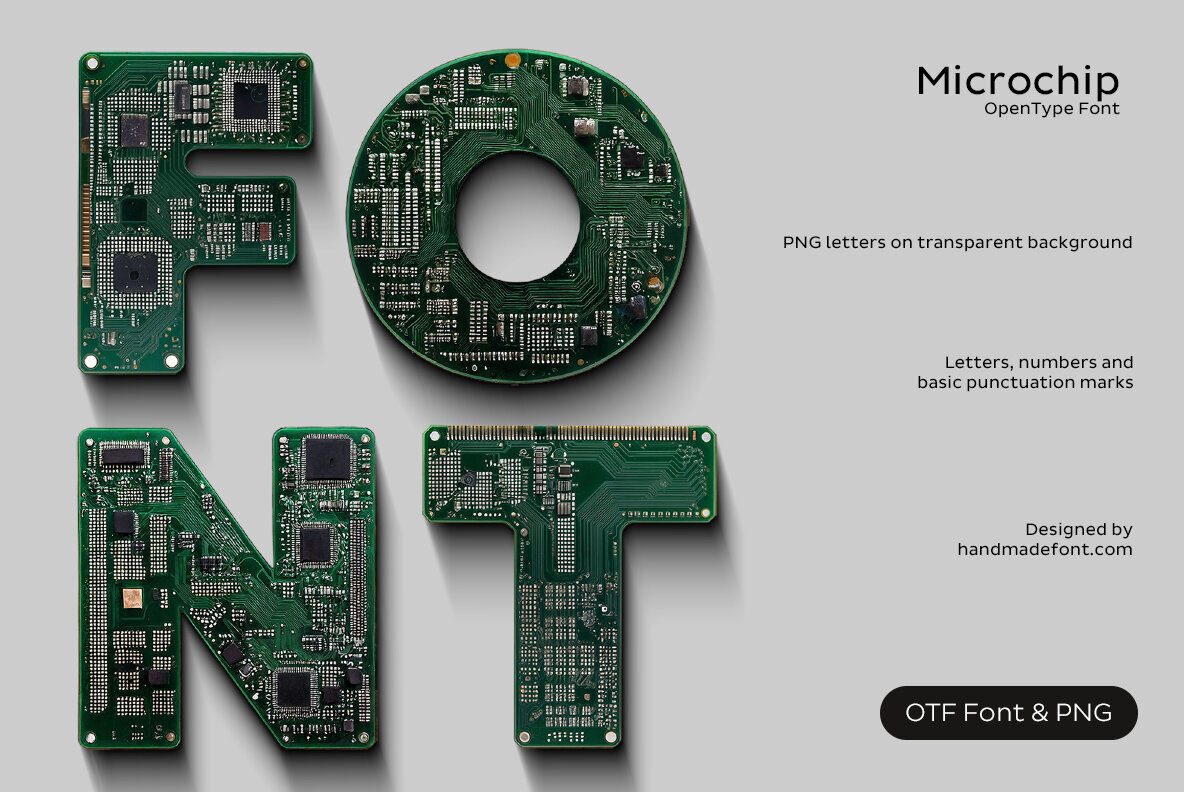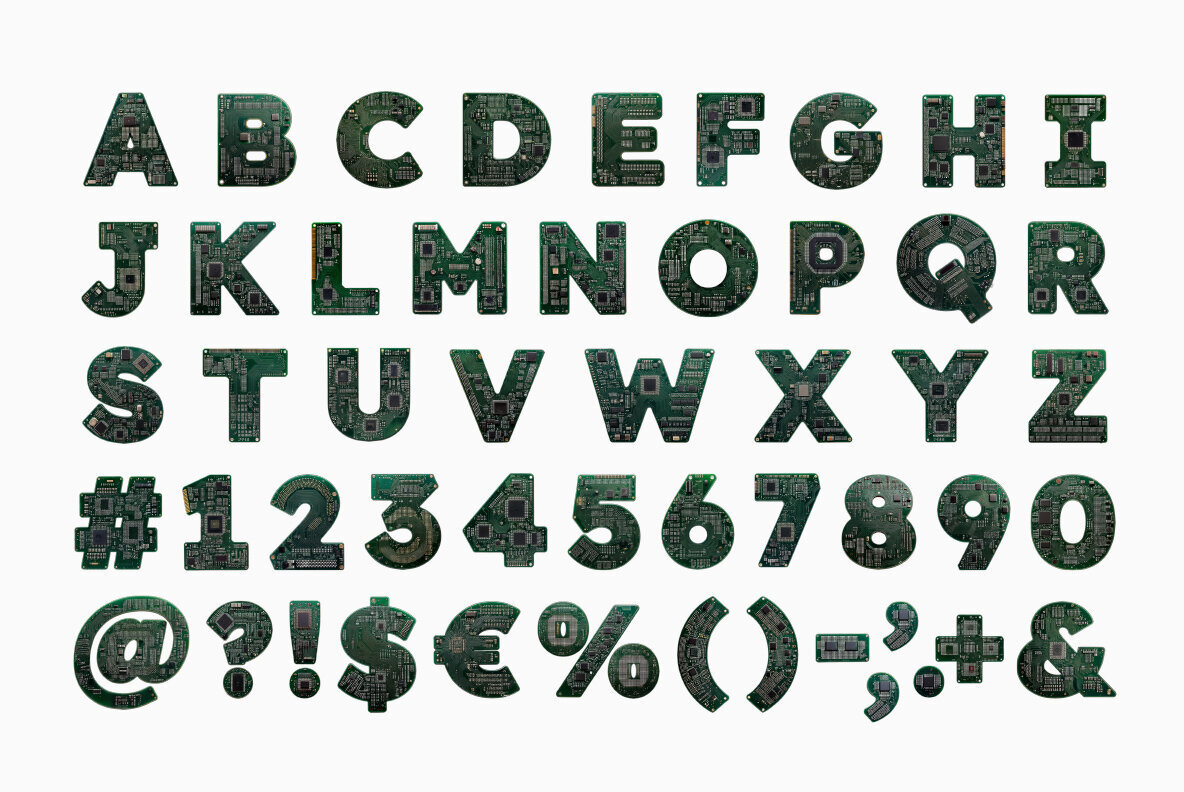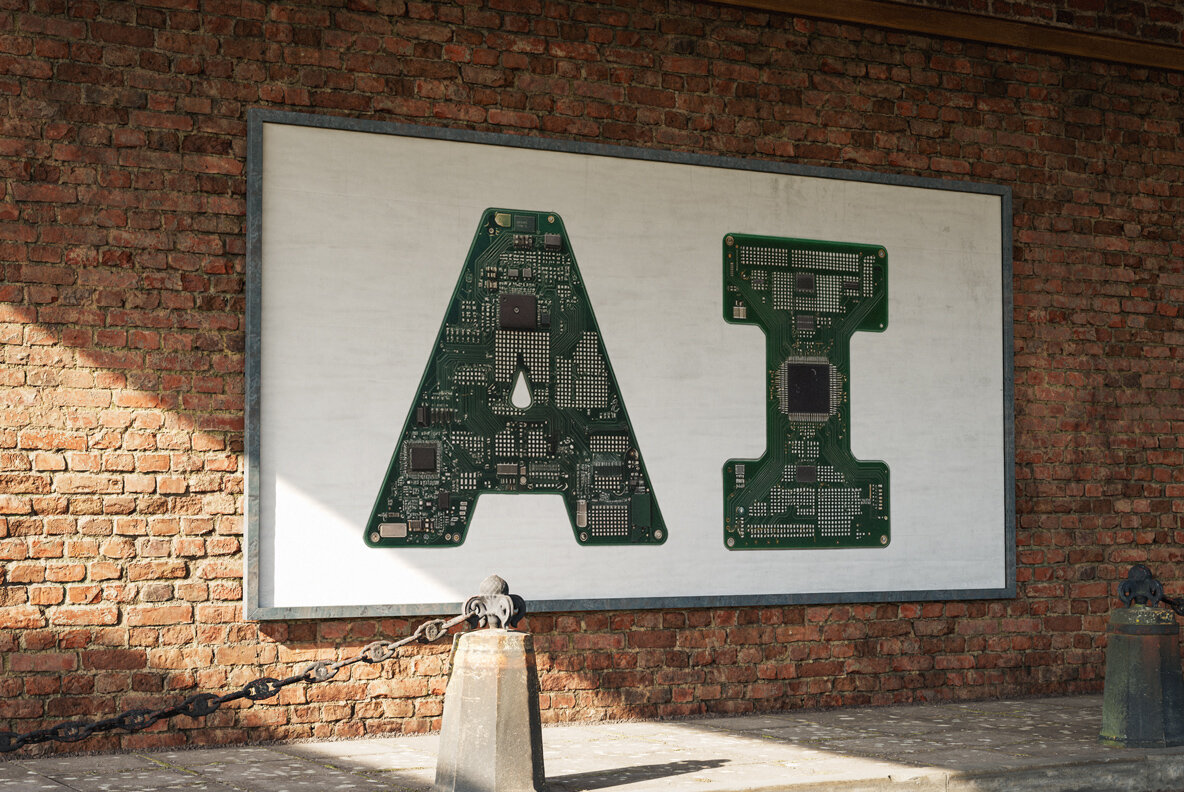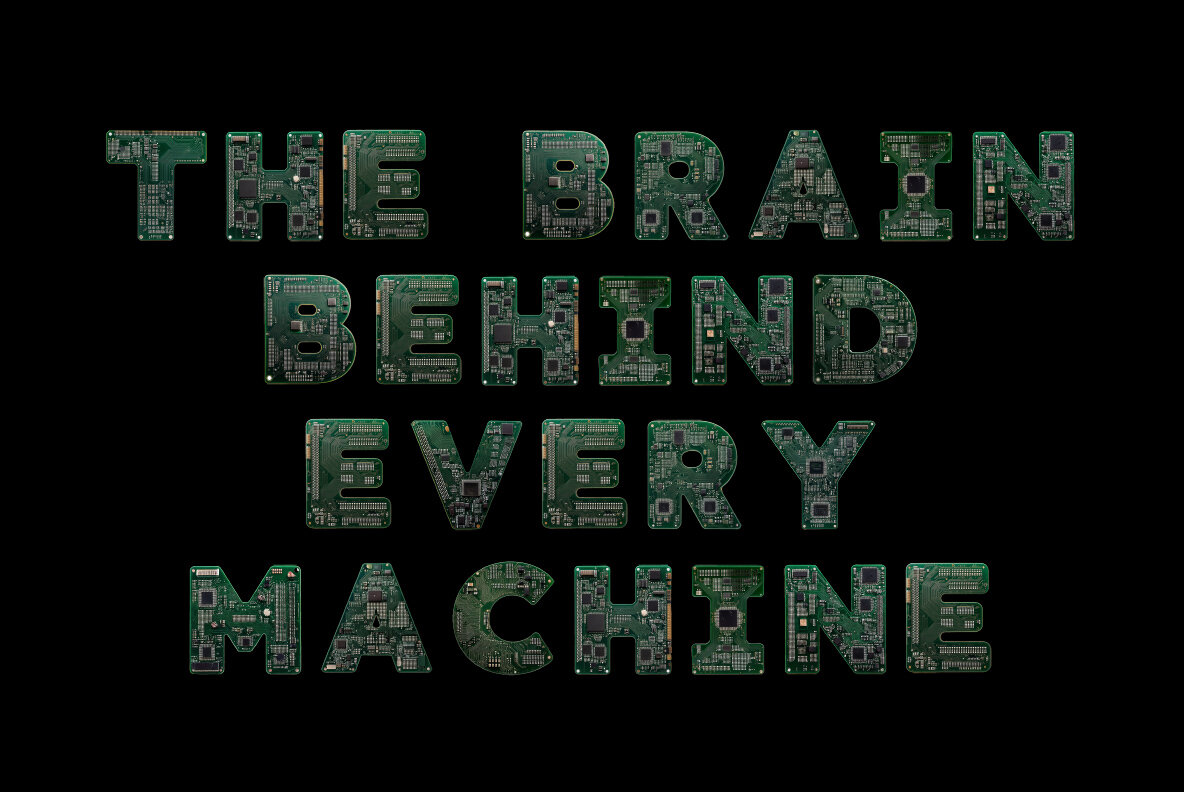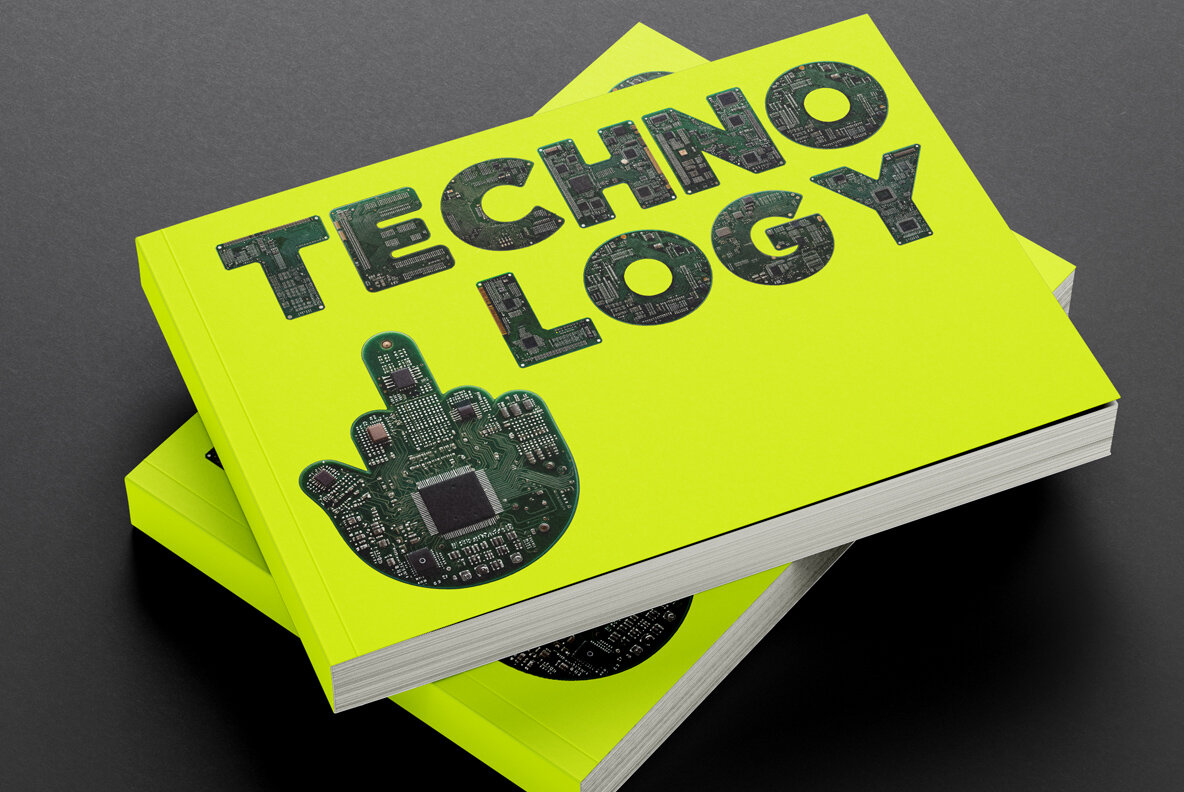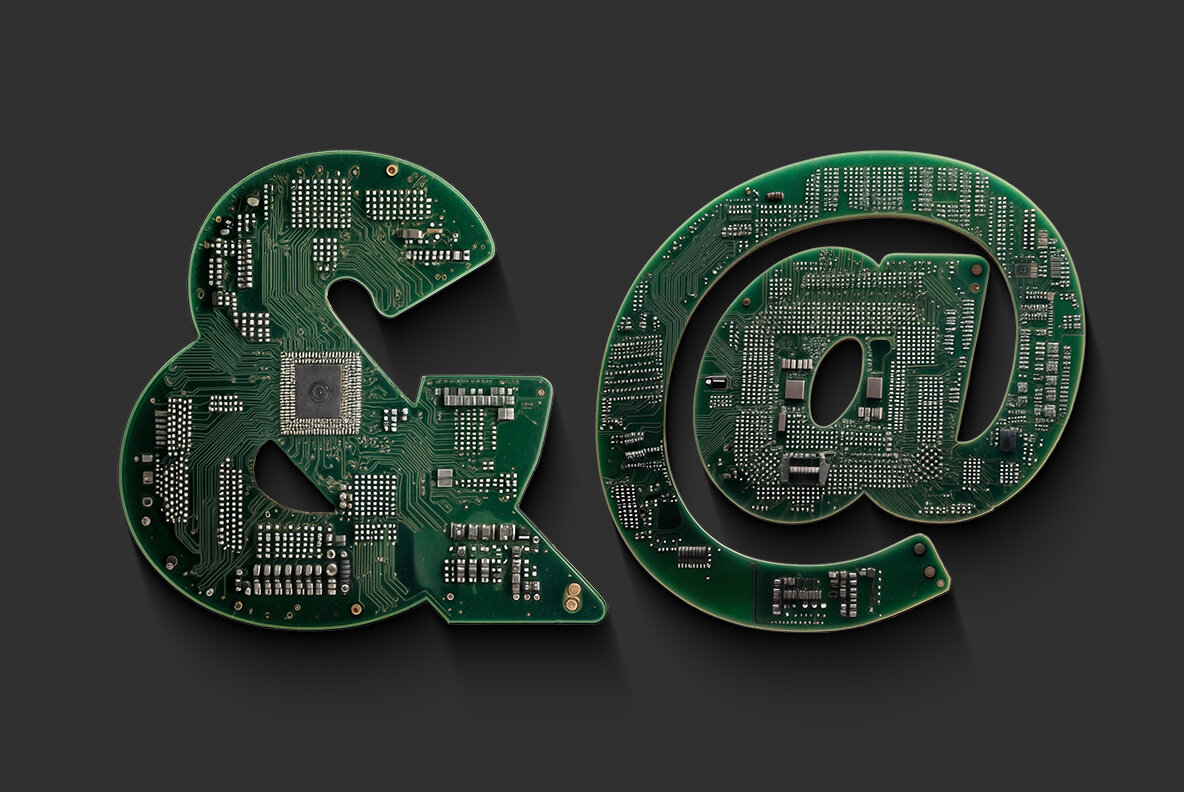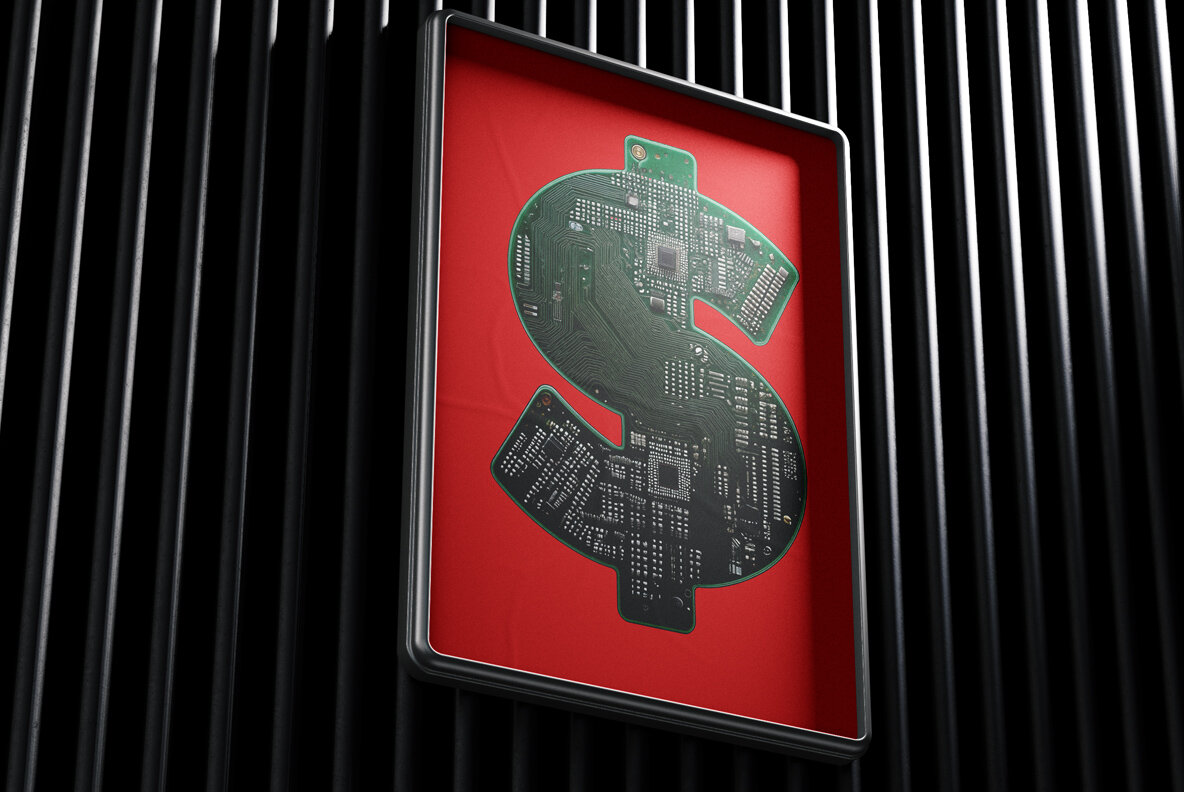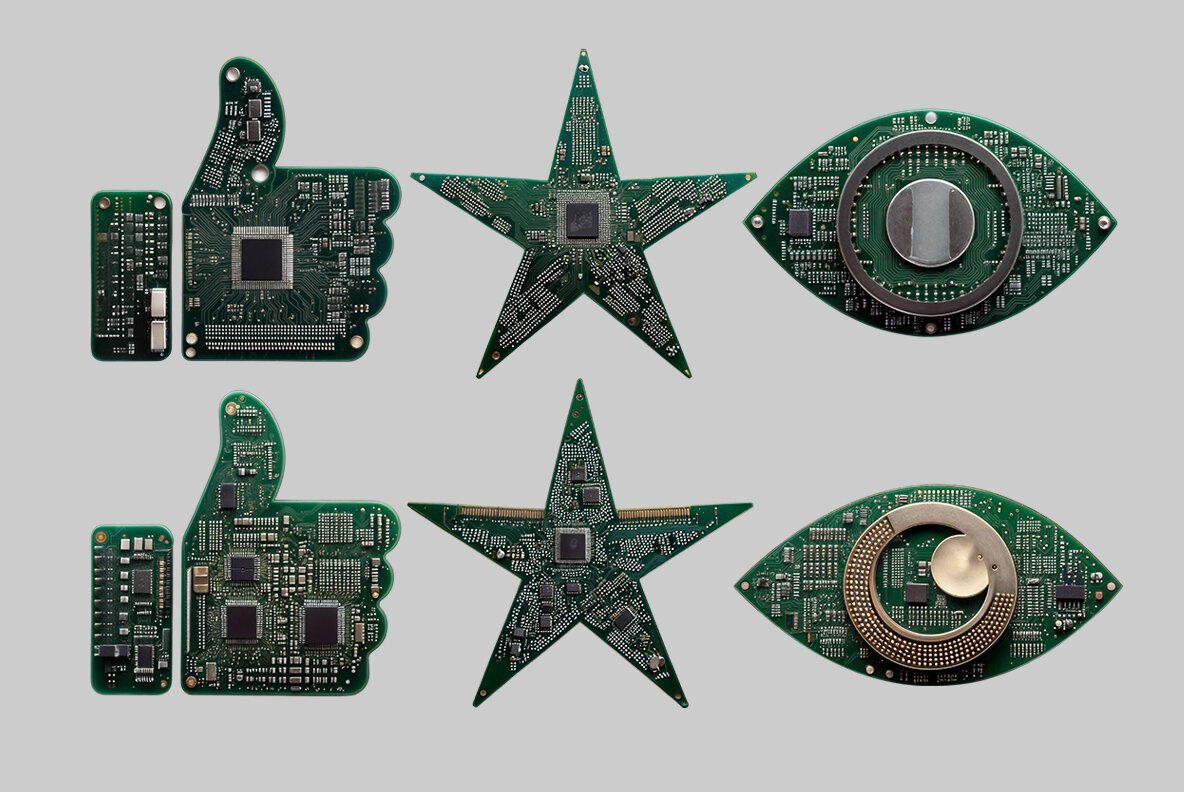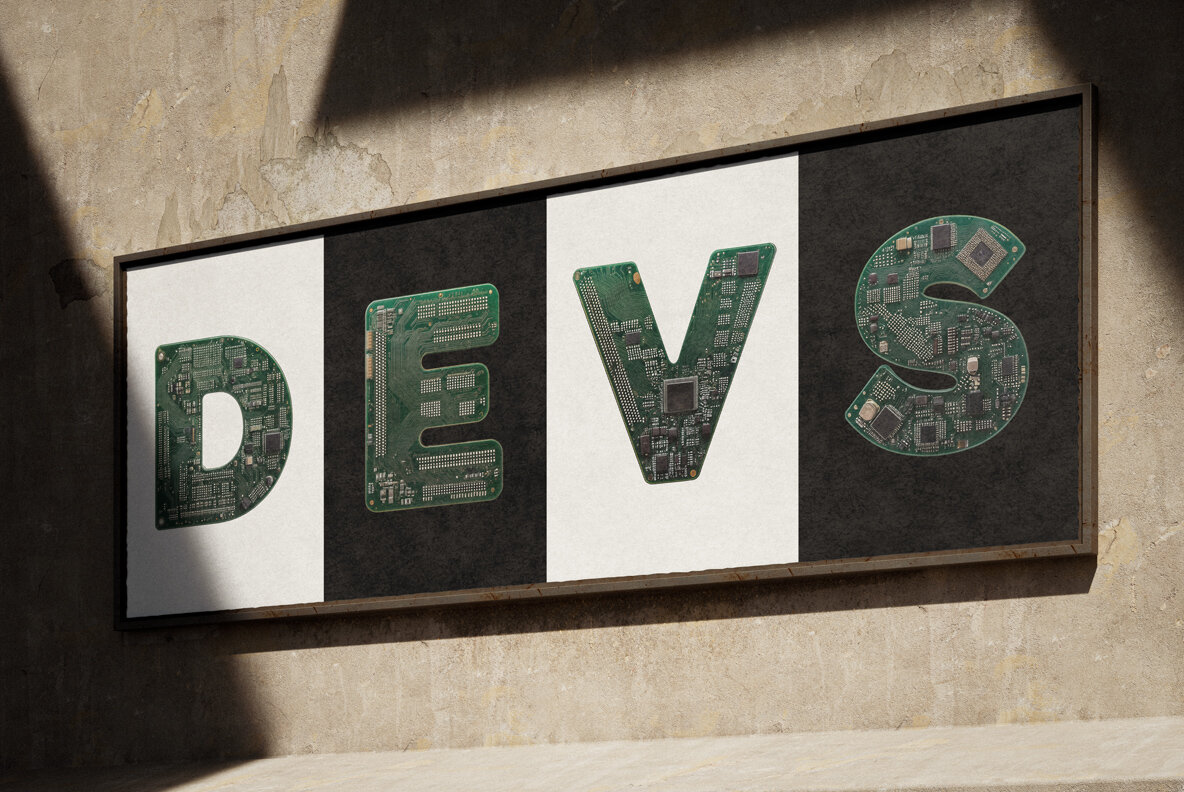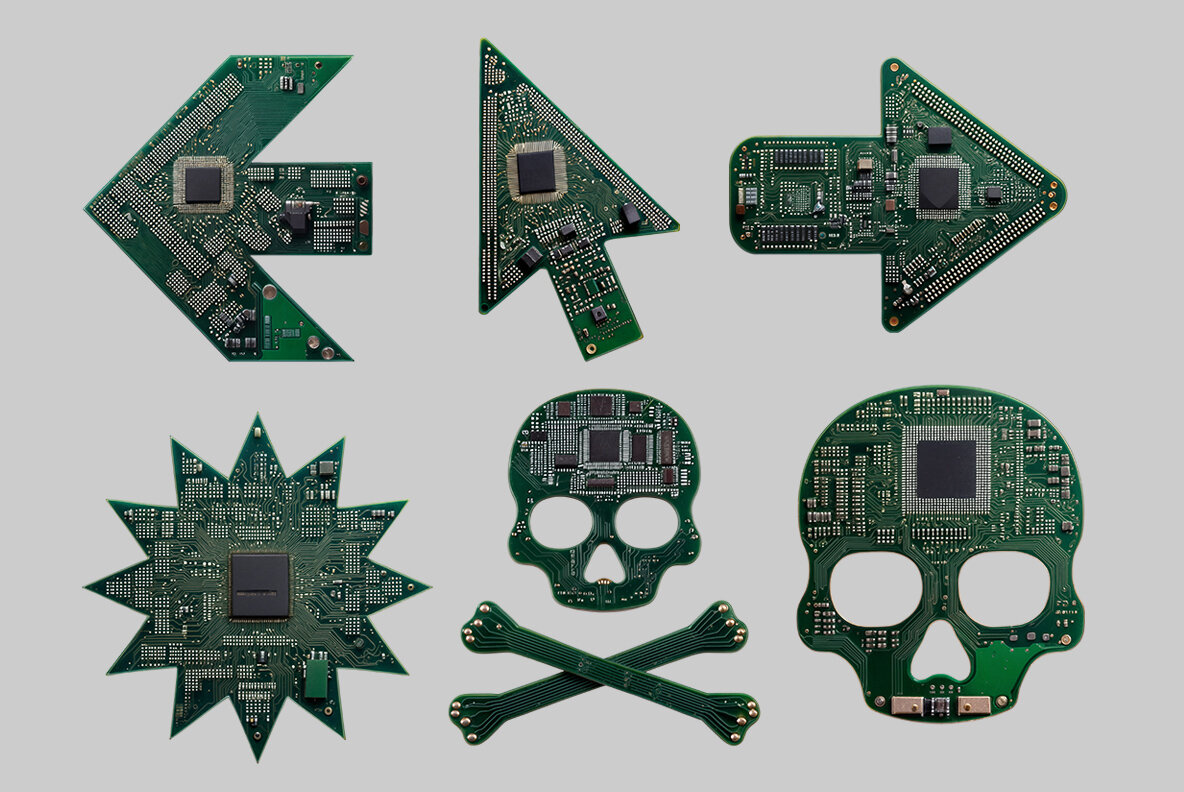
Embrace the future of typography with Microchip Font, a meticulously crafted typeface that pays homage to the intricate world of electronics. Each character is designed with green PCB textures, featuring detailed white pathways, golden connectors, and black microchips, delivering a striking, futuristic aesthetic. This sophisticated font effortlessly captures the essence of modern technology and advanced computing, making it an ideal choice for projects in technology, AI, and science. Perfect for tech startups and innovative brands, Microchip Font makes a bold impact in logos, posters, and digital designs. With a high-definition OpenType format, it includes uppercase letters, numerals, and basic punctuation. The font is designed as a color OpenType-SVG, ensuring compatibility with popular software like Photoshop, Illustrator, and InDesign. For added versatility, each character is also available as a high-resolution PNG file, ensuring seamless integration into any design project.Microchip Font: A Digital Design Marvel
Comprehensive Character Set